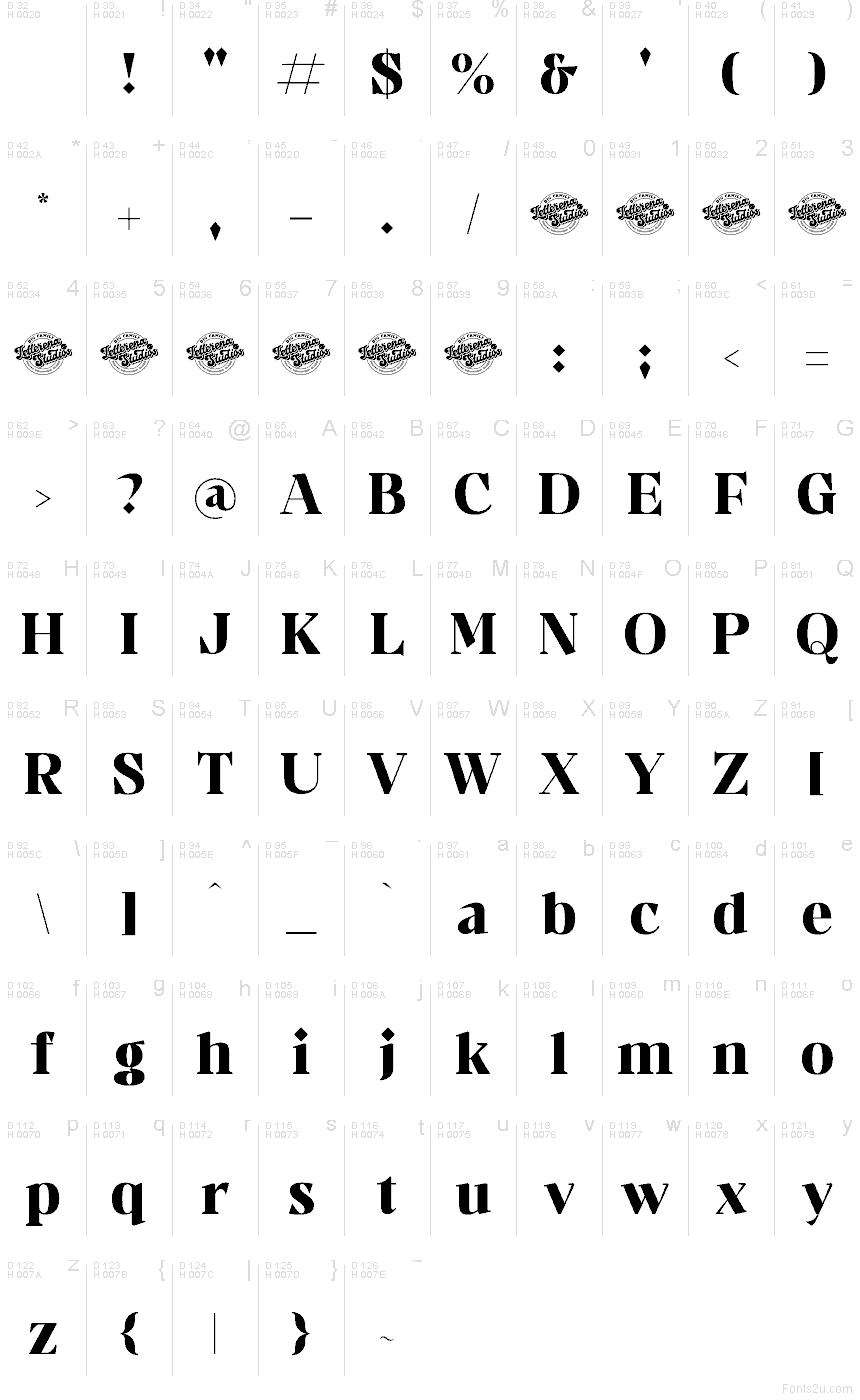
Makien font by Letterena Studios is a free serif font that hits with bold, inky impact and sharp, sculpted details. Its thick stems, compact spacing, and crisp wedge-like serifs give every word a sense of weight and intention, while the diamond-shaped dot adds a subtle, signature twist. The overall feel is both classic and dramatic, like a vintage headline cut from freshly printed newsprint but polished for modern branding.
Using Makien, this free font comes into its own on logos, magazine covers, fashion branding, book titles, product packaging, and bold website hero text. It also works beautifully for posters and editorial pull quotes where you want strong typography to carry the message. For a clean hierarchy, pair Makien with a simple geometric sans for body copy and let Makien sit larger and tighter, so its chunky curves and sharp edges can really do the talking.